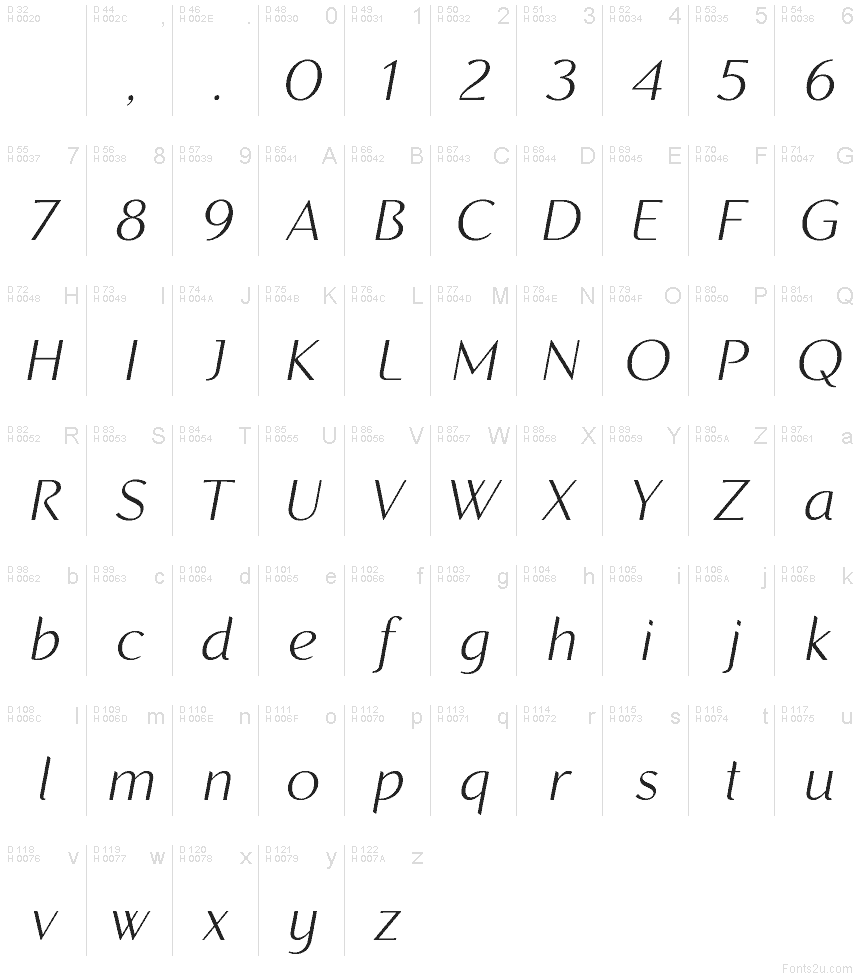
Recline Light Italic
Recline Light Italic font by Digitype Studio is a free italic sans serif typeface that leans with effortless poise. Part of the Recline family, its featherweight strokes and fluid slant create a sense of motion without noise—clean, breezy, and just a touch luxurious. The letters breathe; curves glide into subtle terminals that feel almost handwritten, yet the forms stay crisp and modern.
Using Recline Light Italic, headlines and short lines carry a soft whisper that still reads clearly. It shines on beauty branding, boutique logos, fashion editorials, product packaging, magazine pull quotes, social banners, and event invitations. This free font works beautifully at generous sizes; for body copy, pair it with a calm grotesk like Inter to let the italic voice sing.
Recline comes in a modern style featuring 10 weights, 5 straight & angled, making it easy to adapt to your design.